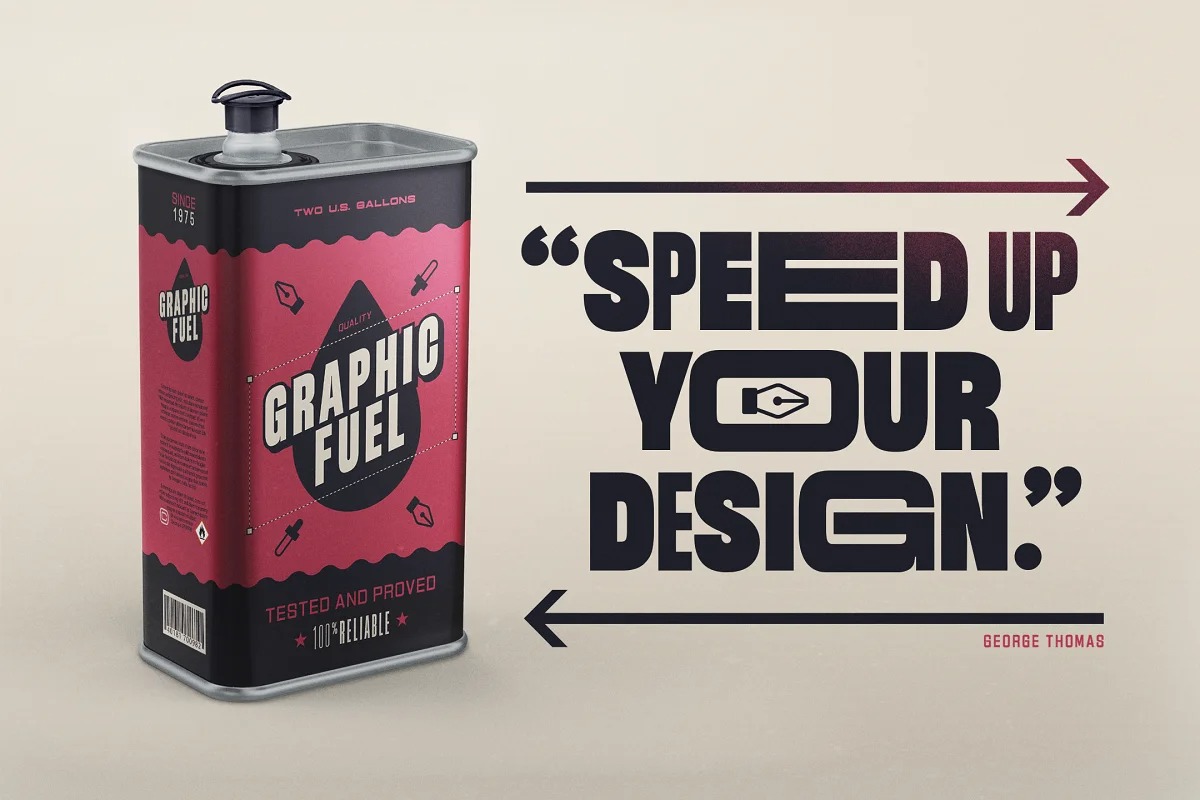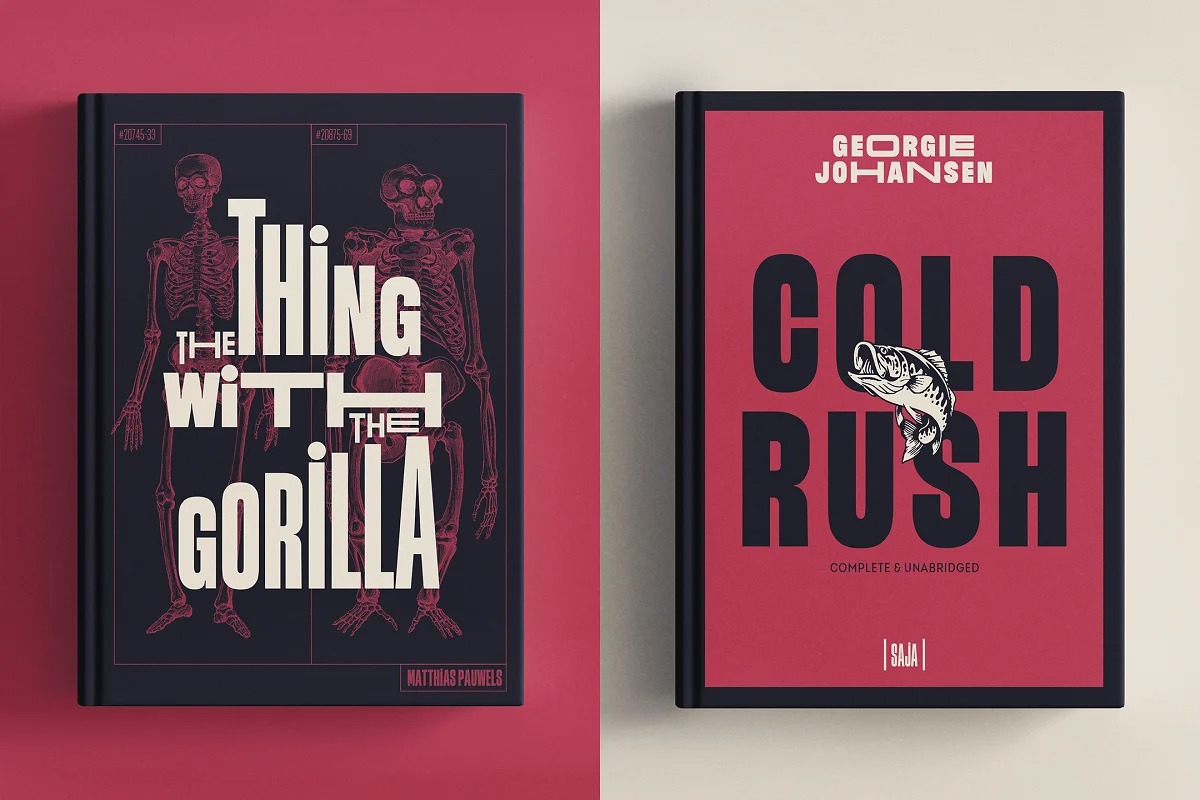
Flexible Font
Flexible Sans Serif Font
It’s a display sans-style font family that compromises the unicase format. Inspired by late 19th century’s gothic typefaces from broadsides, Flexible uses the latest font technology to allow designers to play with each letter height and width easily.
This versatile uppercase typeface is available in 8 widths and 8 heights, and as a variable font which gives you unlimited font possibilities! By using the variable version you only need to install one font file instead of the entire family and you take full advantage of the tremendous scope for design.
This family is a perfect choice for standout headlines, displays, packaging, flyers, logos, and works well in both print and digital environments like sophisticated web design or kinetic typography.